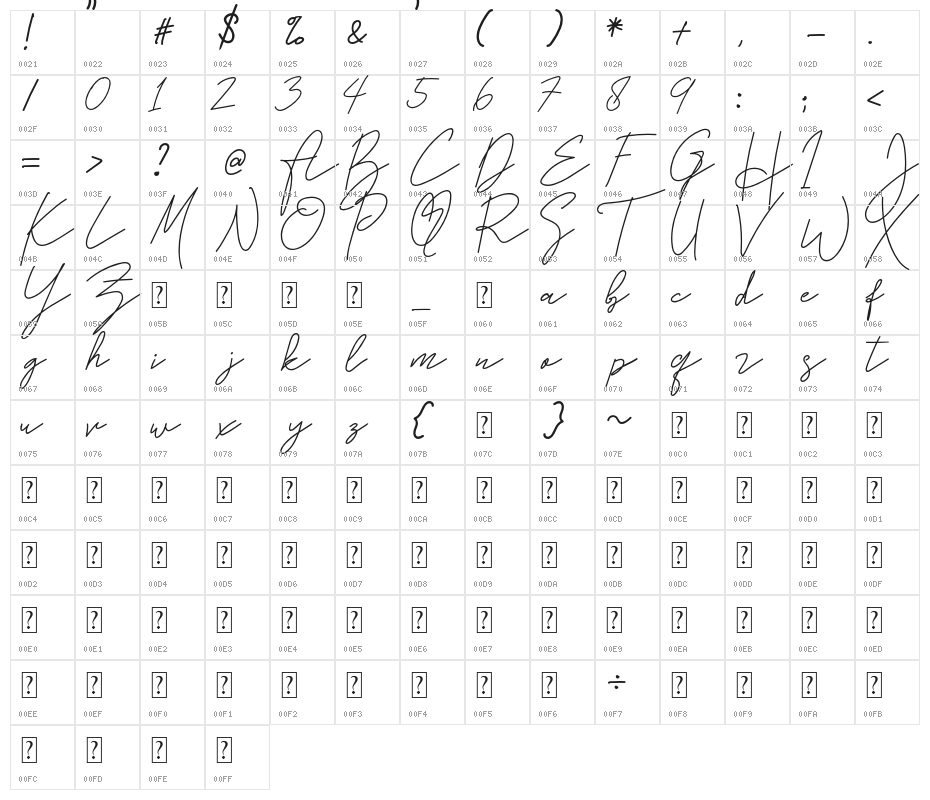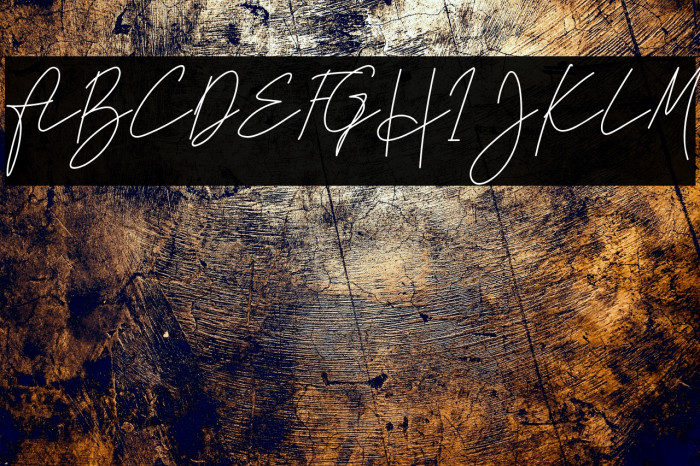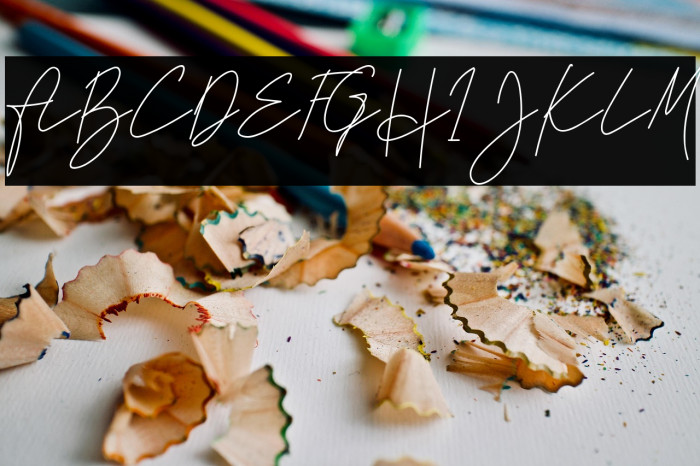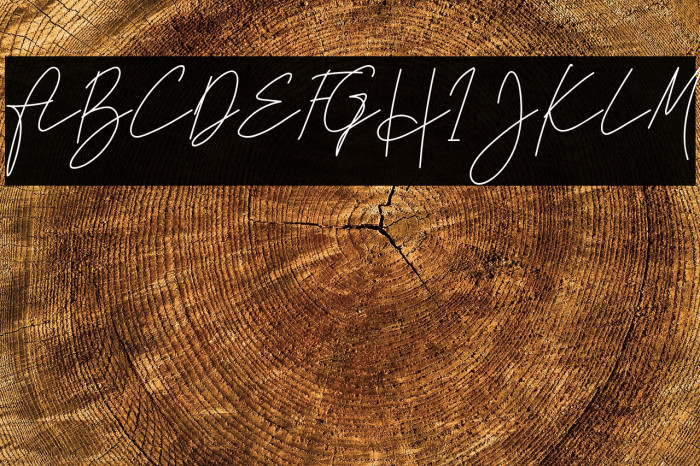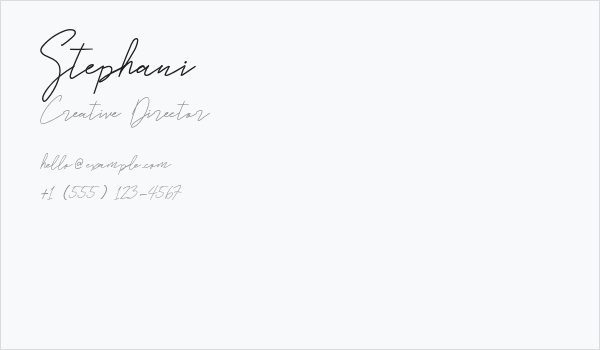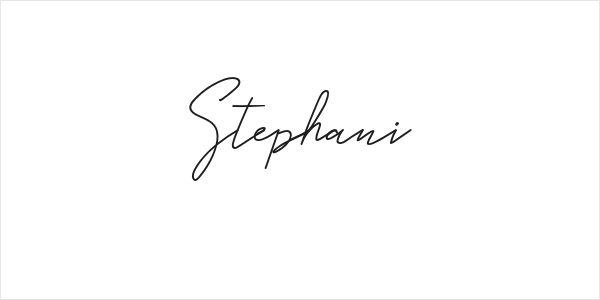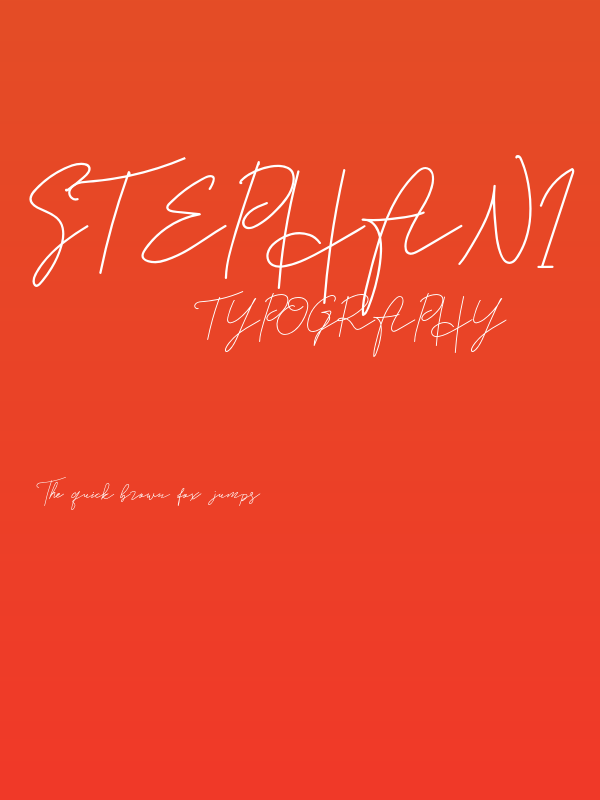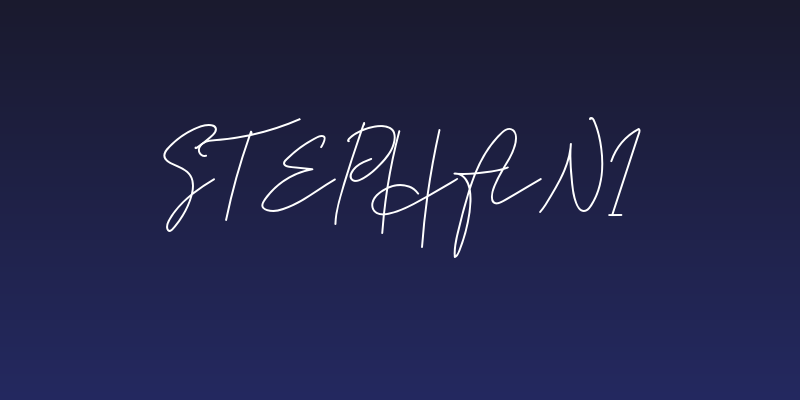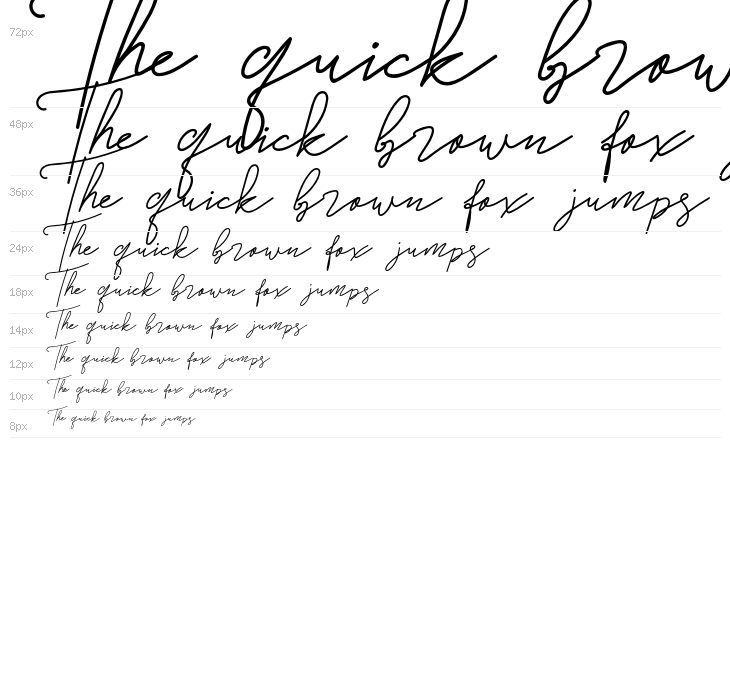
Stephani Font
Stephani Description
This font features a flowing, cursive style that mimics elegant handwriting. The letters are connected, creating a seamless and fluid appearance. The uppercase letters are slightly more structured, while the lowercase letters exhibit a graceful, looping form. The numbers maintain the same fluidity, ensuring consistency throughout. Special characters are integrated smoothly, complementing the overall aesthetic. This font exudes a sense of sophistication and personal touch, making it ideal for projects that require a handwritten feel.
| Overall Style | Elegant, Handwritten |
| Use Case | Logos, Invitations, Personal Correspondence |
| Proposed Projects | Ideal for wedding invitations, personal letters, branding projects, and any design requiring a personal, elegant touch. |